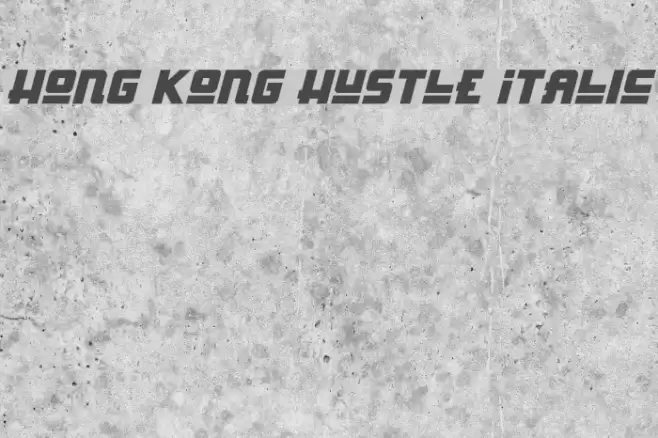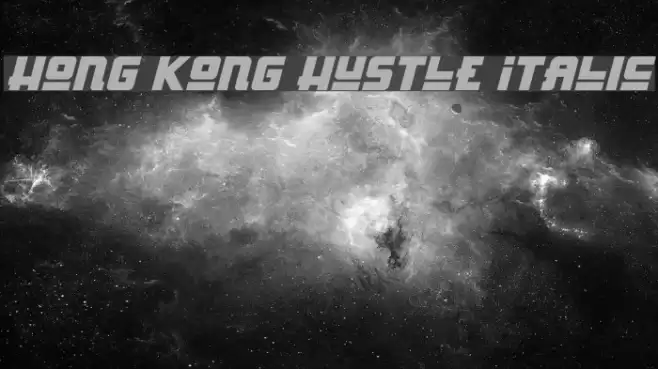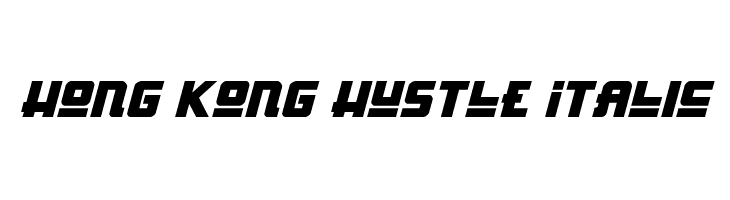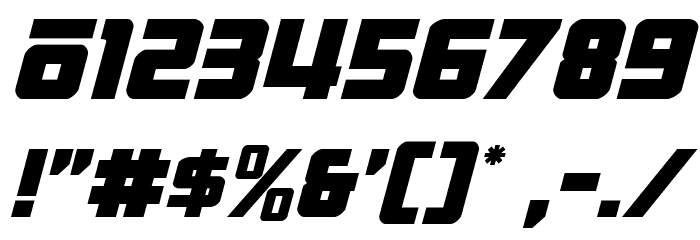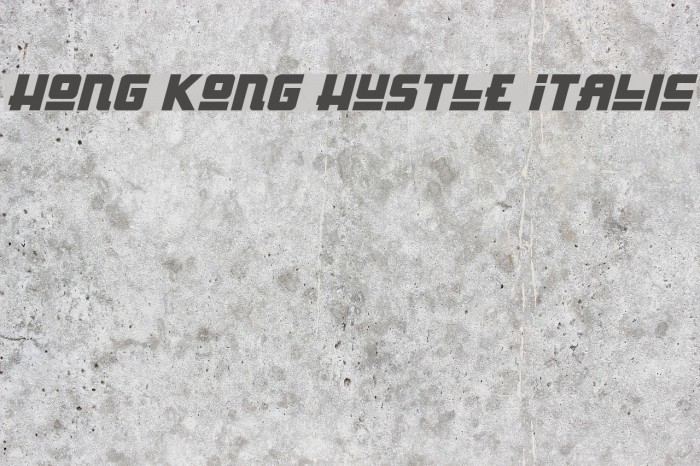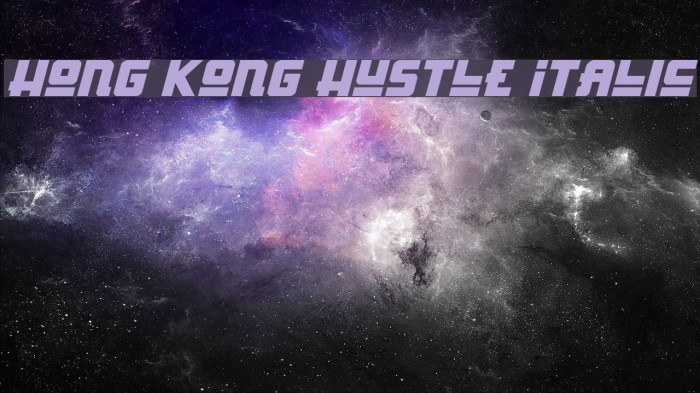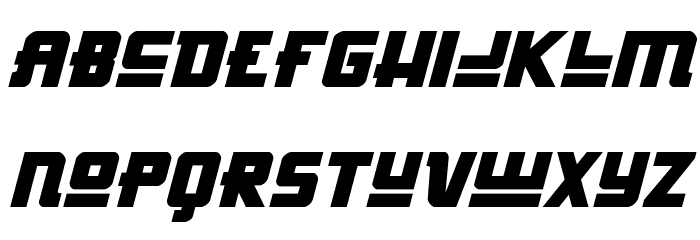
Hong Kong Hustle Italic Font
Hong Kong Hustle Italic Description
This font features a bold and dynamic style with a distinct italic slant, giving it a sense of motion and energy. The characters are blocky and geometric, with sharp angles and a strong presence. The uppercase letters are particularly striking, with unique cuts and lines that add to the font's modern and edgy appearance. The numerals and special characters maintain this bold aesthetic, ensuring consistency across all elements. This font is designed to stand out and make a statement, suitable for projects that require a strong visual impact.
A bold, italic, geometric font with a dynamic and edgy style from Uncategorized fonts.
- Proposed Projects: Ideal for sports branding, action movie posters, video game titles, and dynamic advertising campaigns.